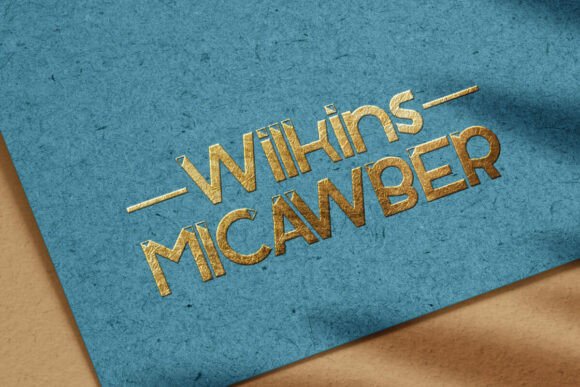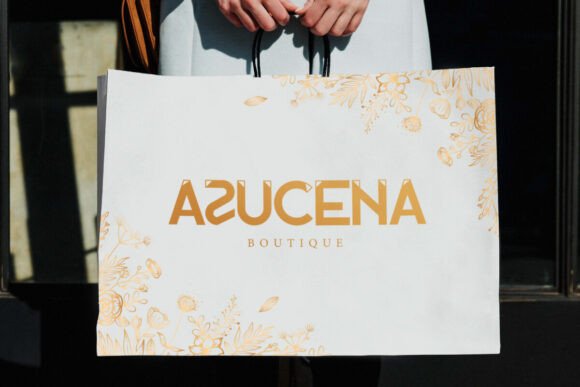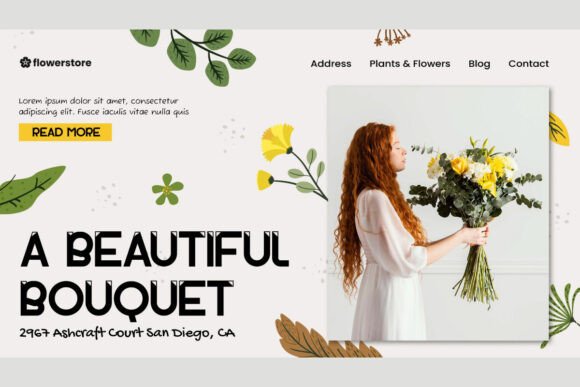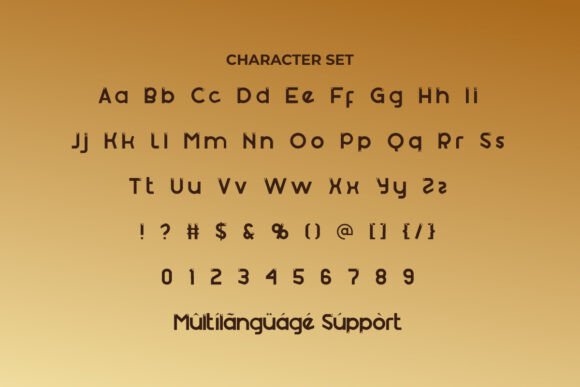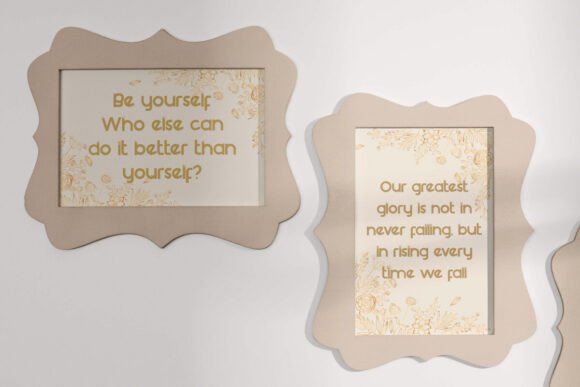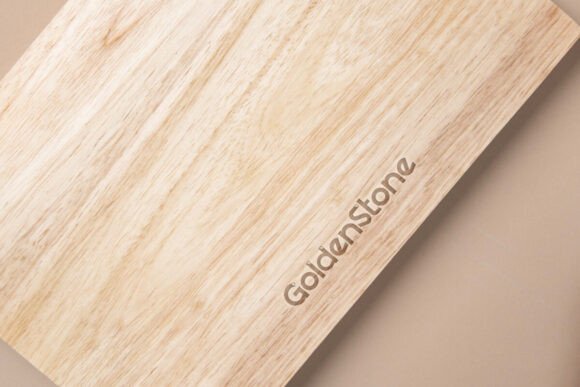
Introducing the Golden Rose Font: Elevate Your Designs with Luxury and Elegance
Are you looking for a font that exudes luxury and sophistication? Look no further than the Golden Rose Font, a stylish sans serif display font that is perfect for designers and crafters seeking to add a touch of elegance to their projects. This beautiful font features a unique design element – a small triangular shape in the corner of each uppercase letter, as well as some lowercase letters – giving it a distinctive and luxurious theme.
Key Features of the Golden Rose Font
- Stylish Sans Serif Design: The Golden Rose Font boasts a clean and modern sans serif design, making it perfect for a wide range of applications, from branding and advertising to packaging and digital media.
- Luxurious Theme: The font’s luxurious theme is evident in its elegant lines and sophisticated feel, making it ideal for designs that require a high-end look and feel.
- Unique Triangular Shape: The small triangular shape in the corner of each uppercase letter, as well as some lowercase letters, adds a touch of whimsy and personality to the font, setting it apart from more traditional fonts.
- Versatile: The Golden Rose Font is incredibly versatile, and can be used for a wide range of designs, including brand image, covers, custom designs, greeting cards, invitations, labels, posters, product packaging, quotes, signage, web design, and more!
Uses for the Golden Rose Font
The Golden Rose Font is perfect for designers and crafters who want to add a touch of luxury and sophistication to their projects. Here are just a few ideas for using this beautiful font:
- Branding and Identity: Use the Golden Rose Font to create a luxurious brand image that will help your business stand out from the competition.
- Packaging Design: Add a touch of elegance to your product packaging with the Golden Rose Font, perfect for high-end products or special edition releases.
- Stationery and Invitations: Create beautiful greeting cards, invitations, and other stationery items with the Golden Rose Font, perfect for weddings, parties, and other special occasions.
- Digital Media: Use the Golden Rose Font to create stunning digital media, including social media graphics, blog posts, and website headers.
Why Choose the Golden Rose Font?
With so many fonts to choose from, why should you choose the Golden Rose Font? Here are just a few reasons:
- Unique Design: The Golden Rose Font features a unique design that will help your projects stand out from the crowd.
- High-Quality: The font is of exceptionally high quality, with clean lines and a sophisticated feel.
- Versatile: The Golden Rose Font can be used for a wide range of projects, making it a great addition to any designer’s toolkit.
- Elegant and Luxurious: The font’s elegant and luxurious theme makes it perfect for designs that require a high-end look and feel.